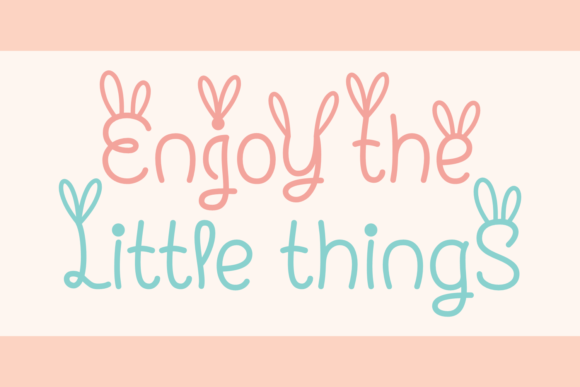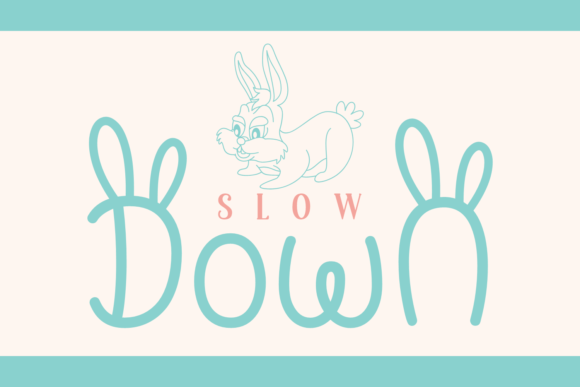
Smart Bunny Font
db-ku.com - Script & Handwritten -- Smart Bunny is a childish, easy-to-read font that conveys impeccable friendliness. Whether you're using it for crafts, digital design, presentations, or making greeting cards, this font has the potential to become your favorite go-to font, no matter the occasion!